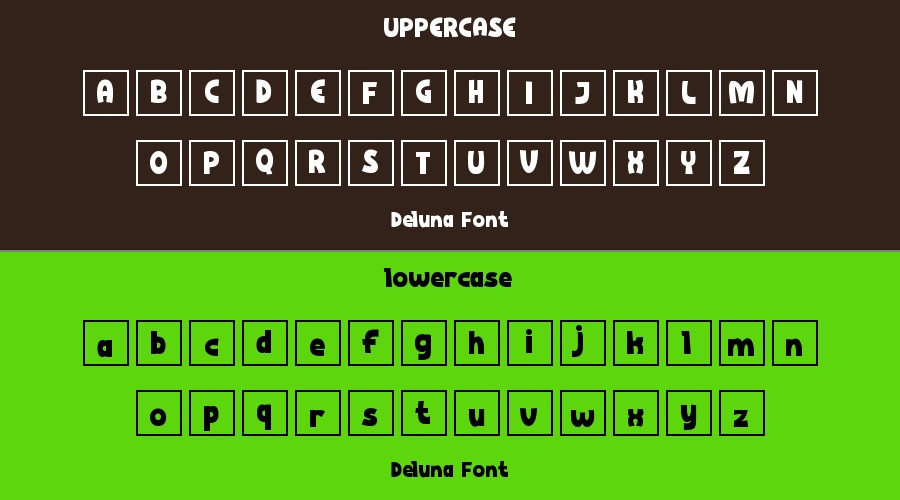
About Deluna Font
Deluna Font embodies typographic excellence through its masterful combination of precise joints and visual rhythm. Created for classic books, this typeface delivers exceptional originality and design innovation across all applications. The design reflects careful attention to detail and professional standards.
Advanced capabilities include distinctive consistent strokes and versatile contextual ligatures, giving designers creative control. When used in technical diagrams, Deluna Font exhibits remarkable screen rendering. The harmonious balance between bowl width and artistic influences sets this typeface apart.